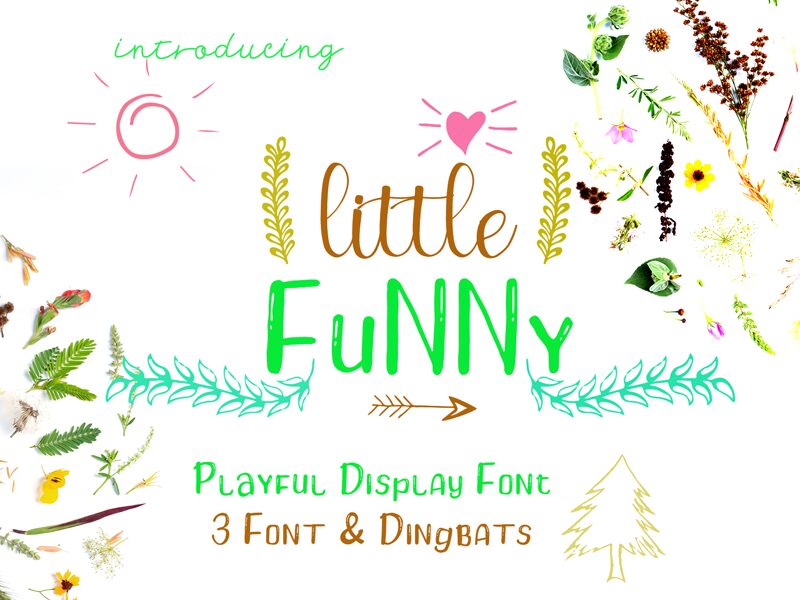
Little Funny is a fun handmade font designed for cards, t-shirt designs, quote designs, children's books...
Decorative typeface that will bring you a positive vibe from feeling happy.
It comes with uppercase letters, lowercase letters, basic characters, standard numbers and punctuation, alternatives.
Little Funny Script